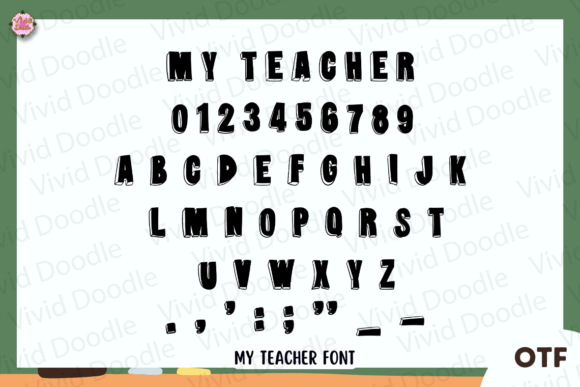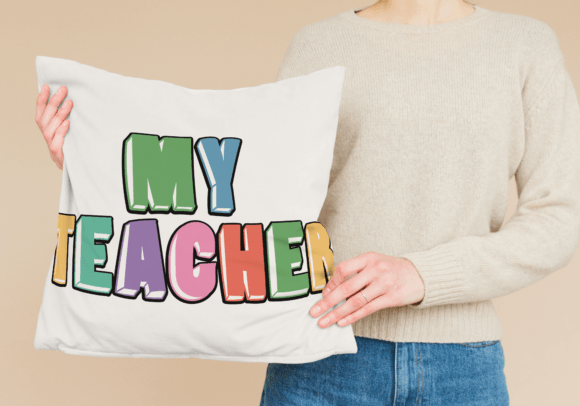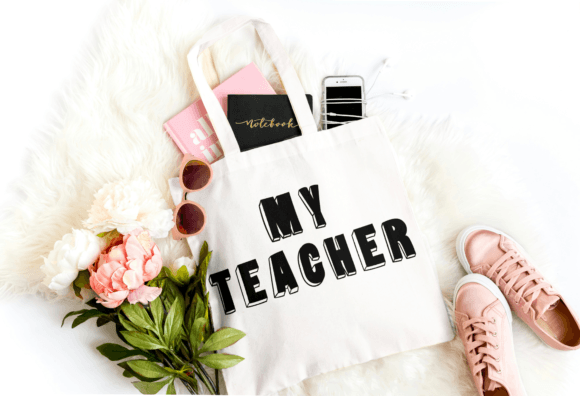
My Teacher Font
About the My Teacher Font
The wait is over! The incredible My Teacher Font is now available for your design toolkit. Introducing My Teacher Font—a charming and versatile typeface perfect for back-to-school, Teacher’s Day, education-themed projects, and various design applications. This font includes an alphabet suitable for creating titles, headers, lettering, posters, greeting cards, invitations, banners, and more. Each character is crafted with a touch of warmth and friendliness, making it ideal for celebrating teachers and the learning environment.
My Teacher Font’s friendly, slightly rounded forms work best in headlines, short text blocks, and display applications such as posters or greeting cards. Its charming personality makes it suitable for branding projects related to education, children’s products, or anything requiring a warm and approachable aesthetic. However, the font’s limited x-height makes it less effective for body copy or extended reading. Avoid using it in user interfaces or situations requiring high legibility in small sizes.
To enhance its impact, pair My Teacher Font with a clean sans-serif like Open Sans for body text, creating a balanced contrast. For a more playful feel, consider pairing it with a handwritten script font, while a geometric sans-serif would add a modern, sophisticated edge.
The overall personality is best described as friendly and approachable, conveying a sense of warmth and nostalgia, making it perfectly suited for projects celebrating education and childhood.